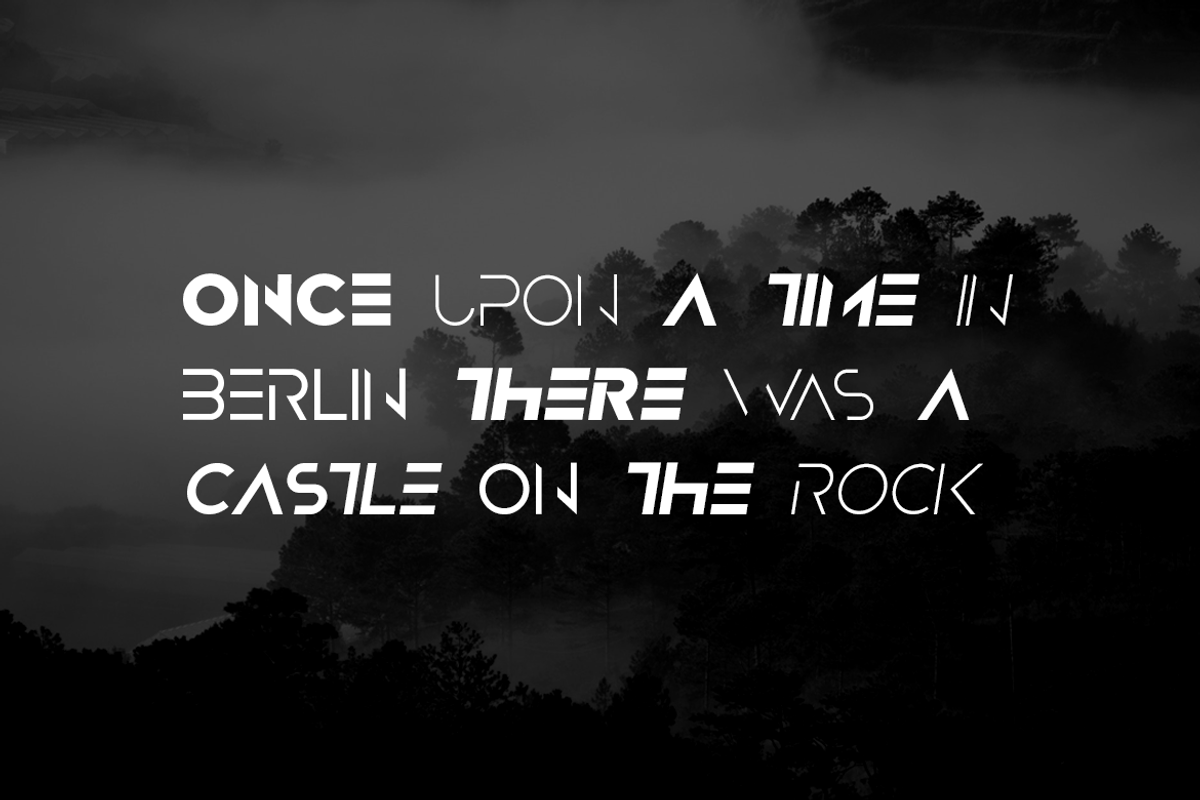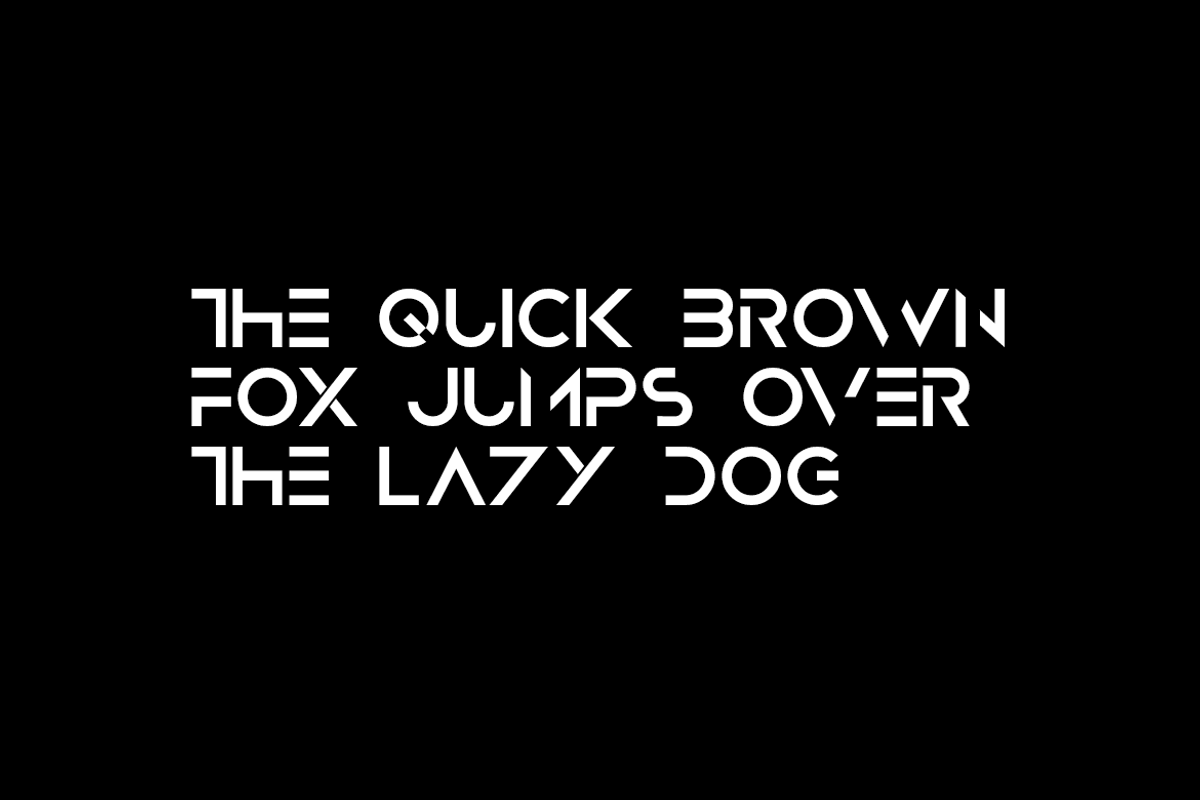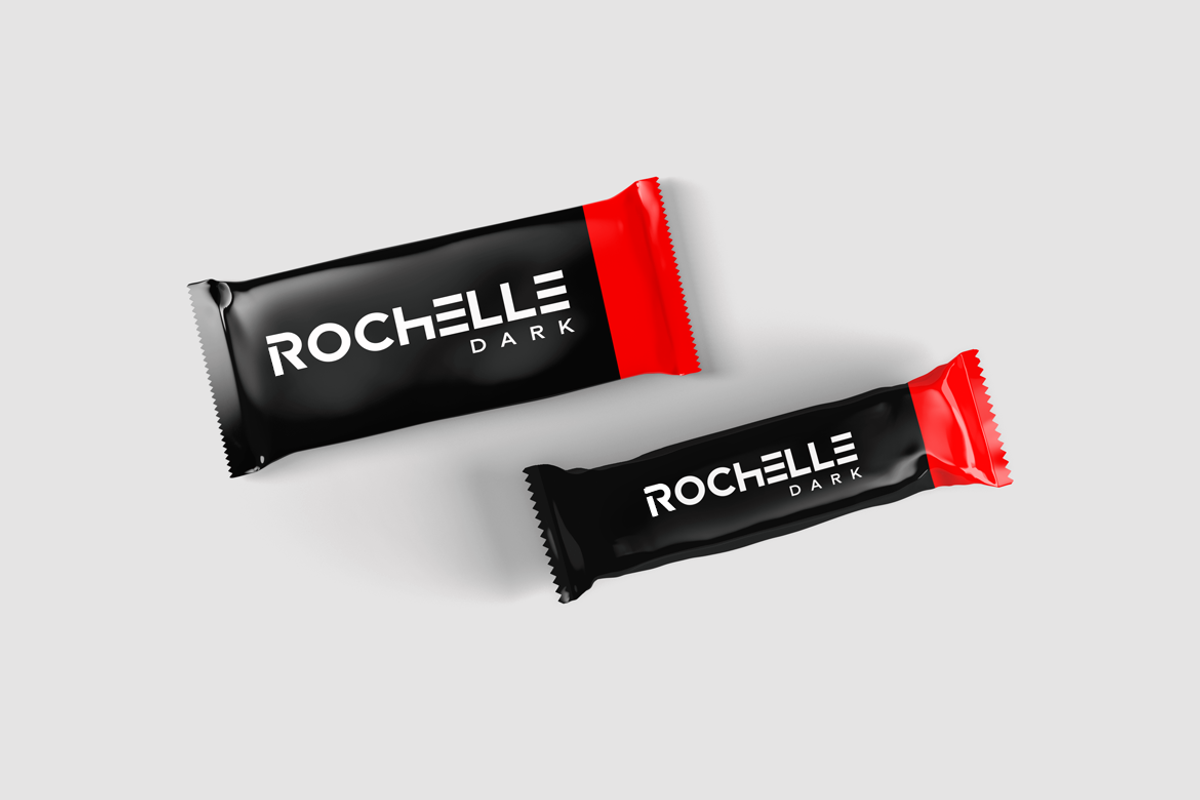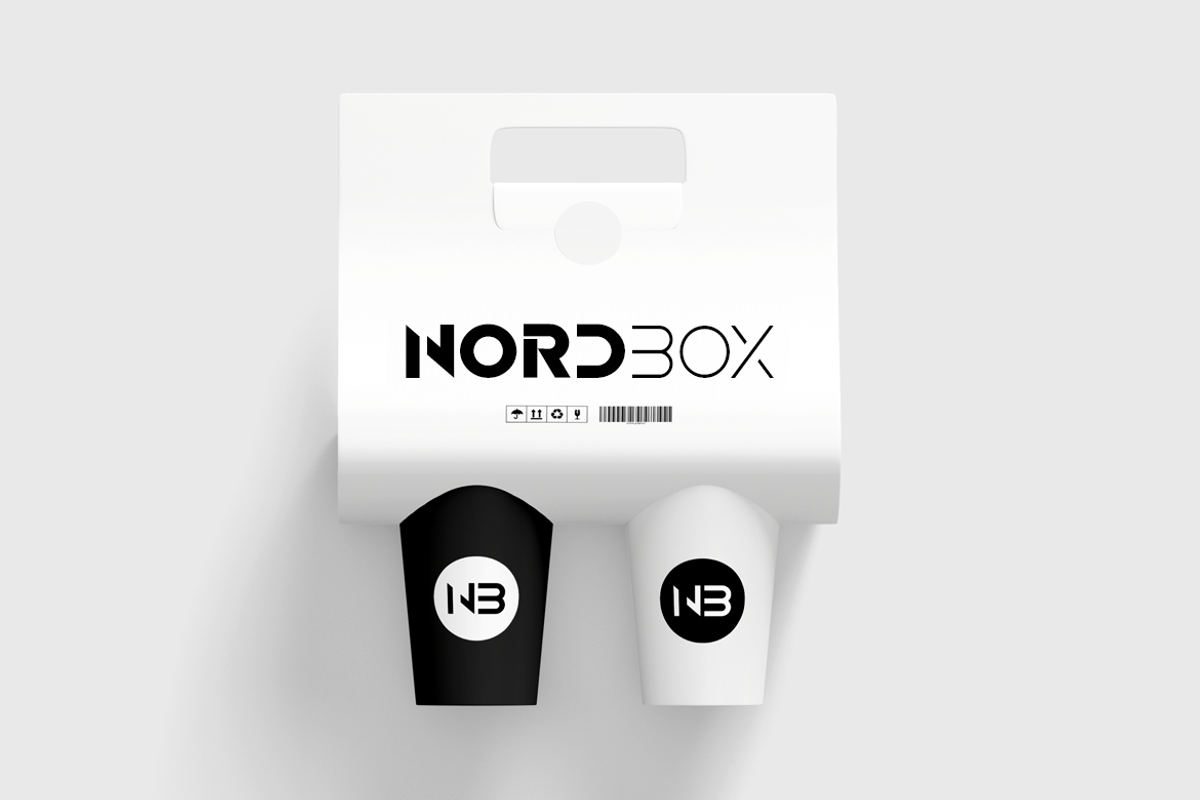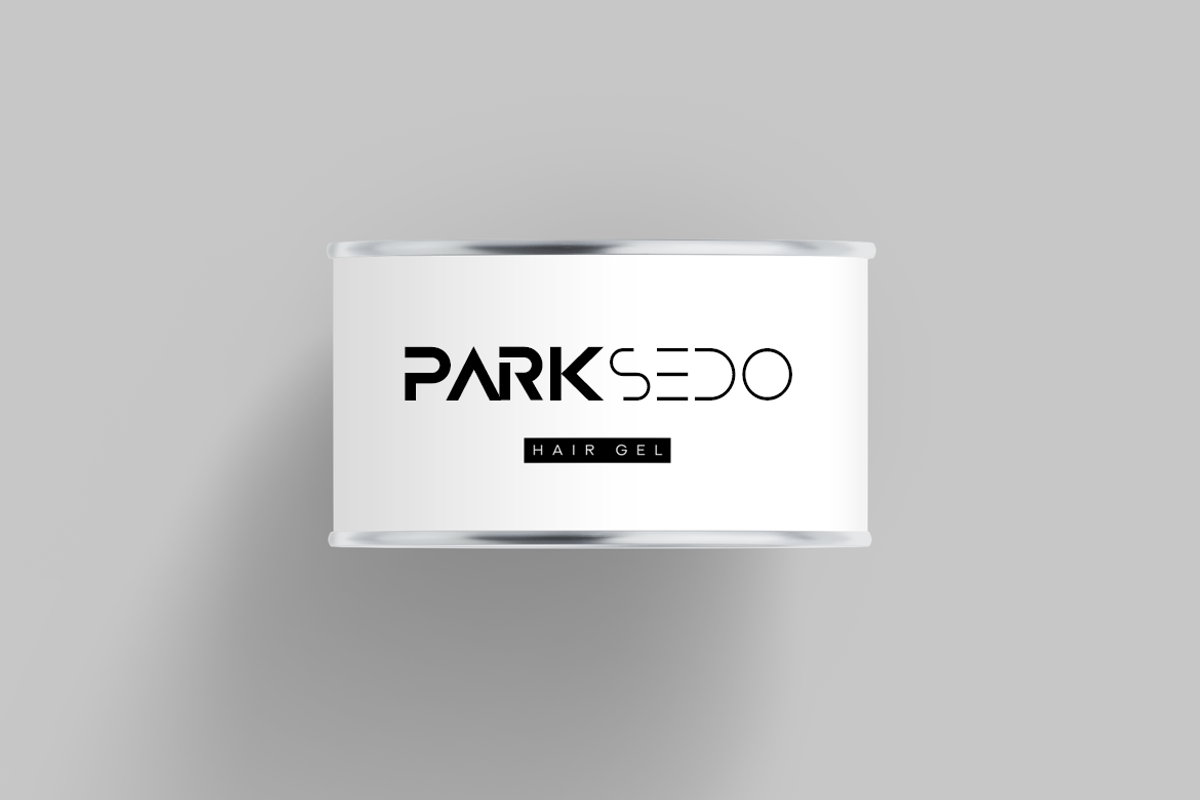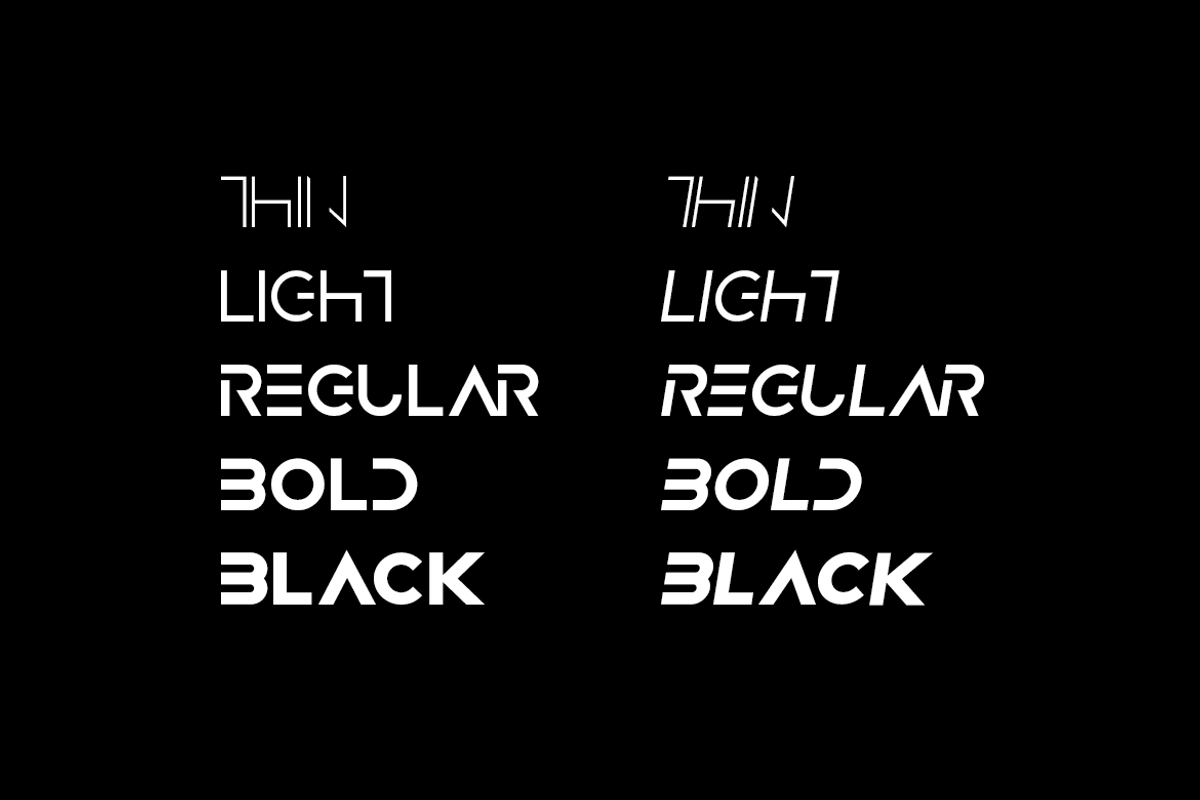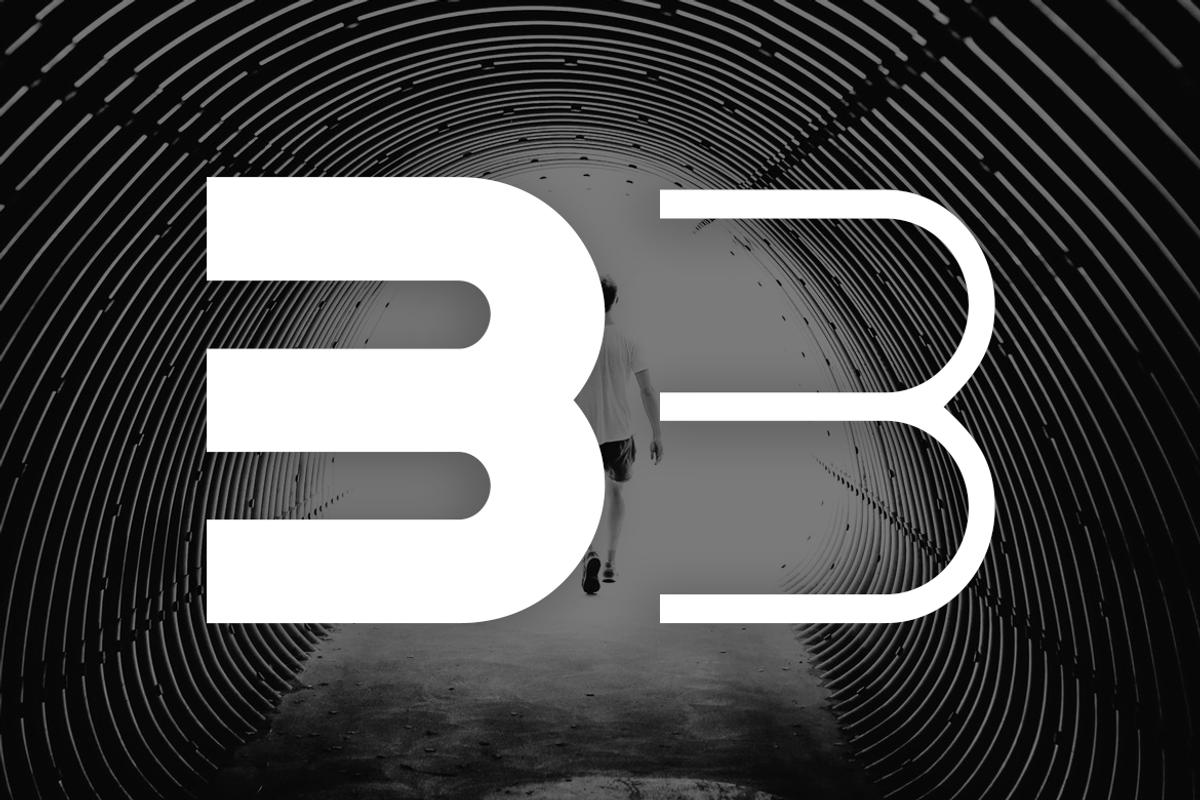
NOIR - Unique Display Logo Typeface
A stunning display typeface for designers, NOIR is a truly unique all-caps display typeface particularly dedicated for display / headline / branding / logotype usage. NOIR will be best suited for creating nicely looking logos, brand identities and headlines. Just see the demo images given above for an abstract idea about the capability of this typeface.
NOIR typeface comes with 5 weights: THIN / LIGHT / REGULAR / BOLD / BLACK as well as italic versions of all 5 weights. The pack includes Desktop Fonts (OTF & TTF) and Web Fonts (all EOT, SVG, TTF, WOFF, WOFF2 included) as licensing options.